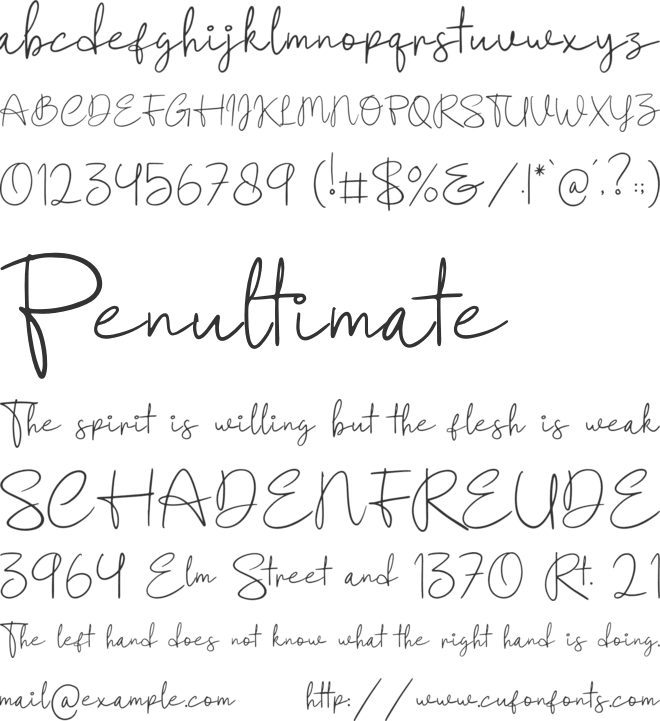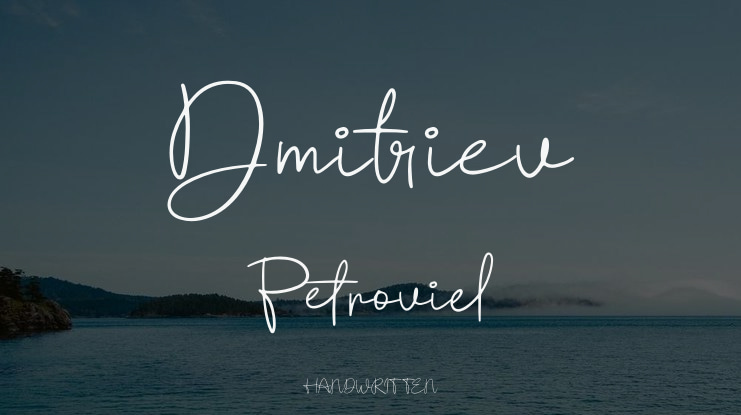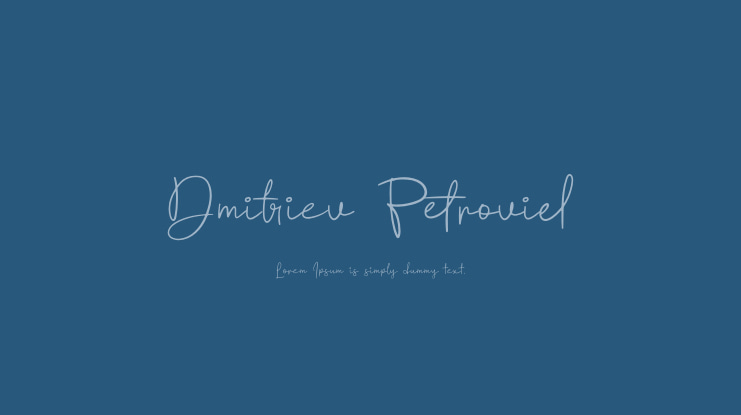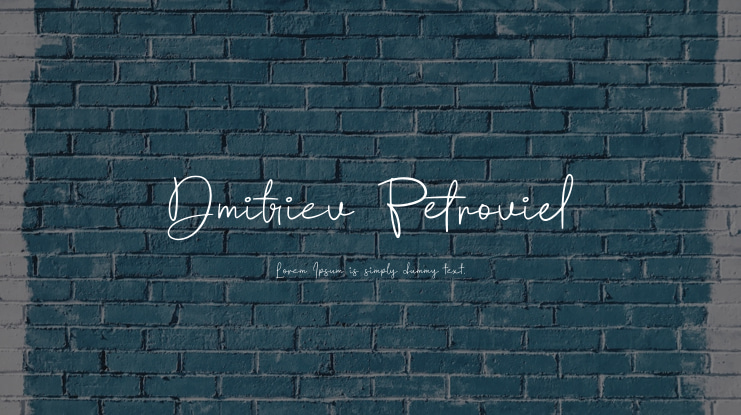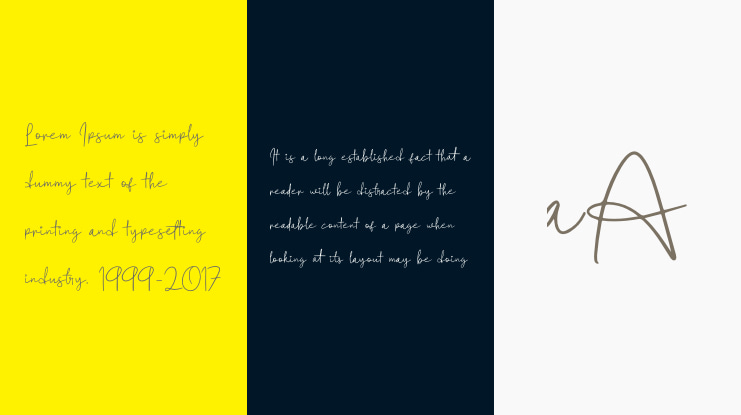
Dmitriev Petroviel Font
Dmitriev Petroviel is a handwritten font suitable for various projects such as logos, branding, homeware designs, product packaging, quotes, posters, t-shirts, and more. This font is designed to add a beautiful script touch to your work. Please note that this demo font is for personal use only and commercial use is not allowed. To purchase the full version and commercial license, visit [this link](https://gracetypestudio.com/dmitriev-petroviel-handwritten-font/). For corporate use, a corporate license is required. Custom licenses can be arranged by contacting us [here](https://gracetypestudio.com/contact/). Donations are appreciated through our Paypal account [here](https://www.paypal.com/paypalme/denustudios). Explore more fonts on our website [here](https://gracetypestudio.com/). Thank you for your interest!